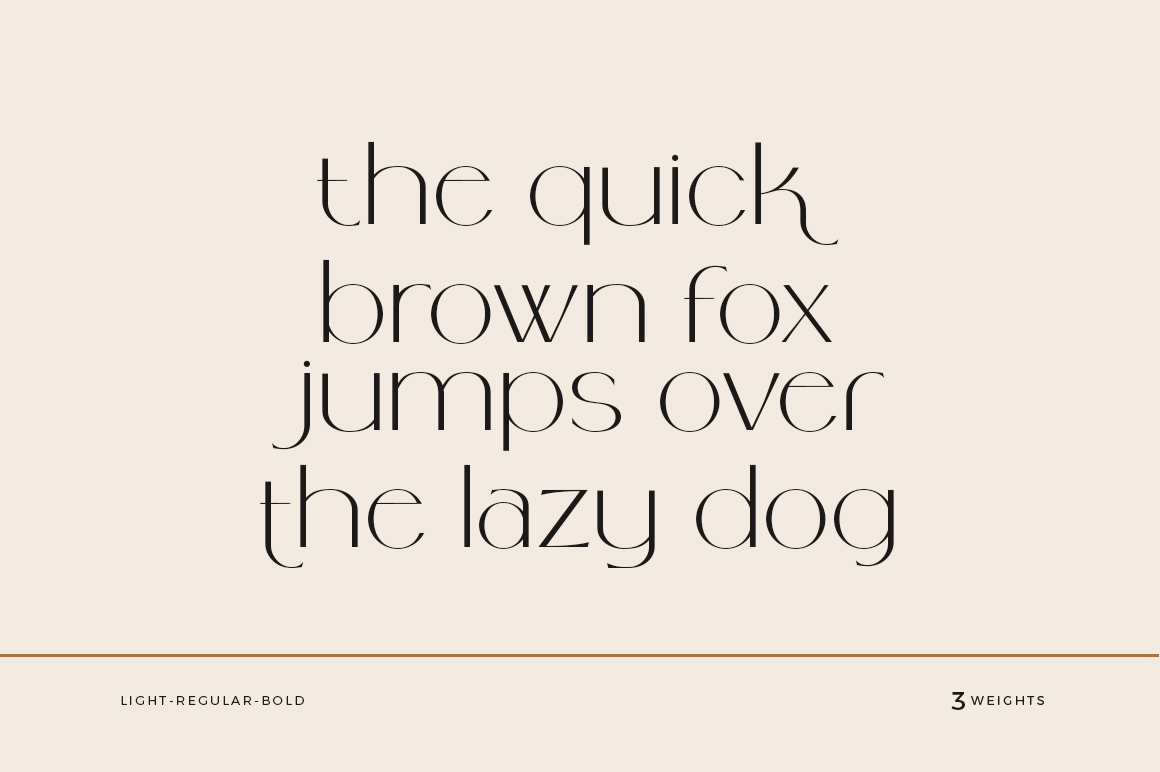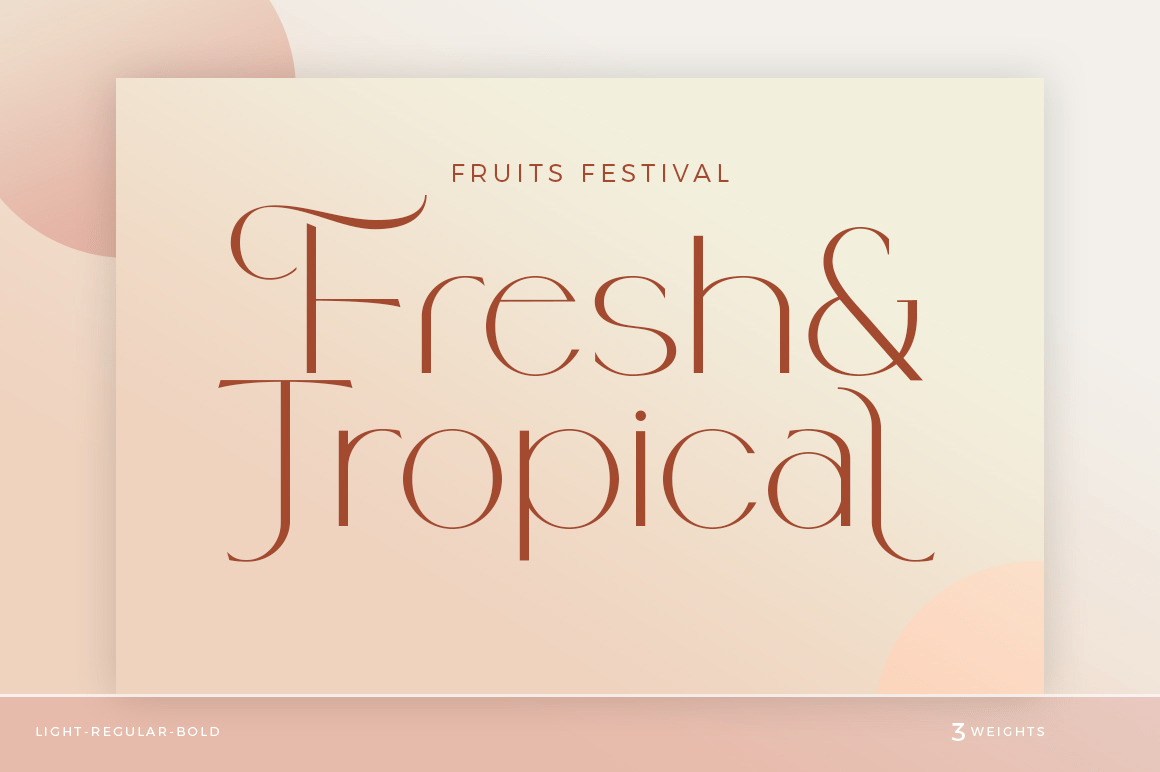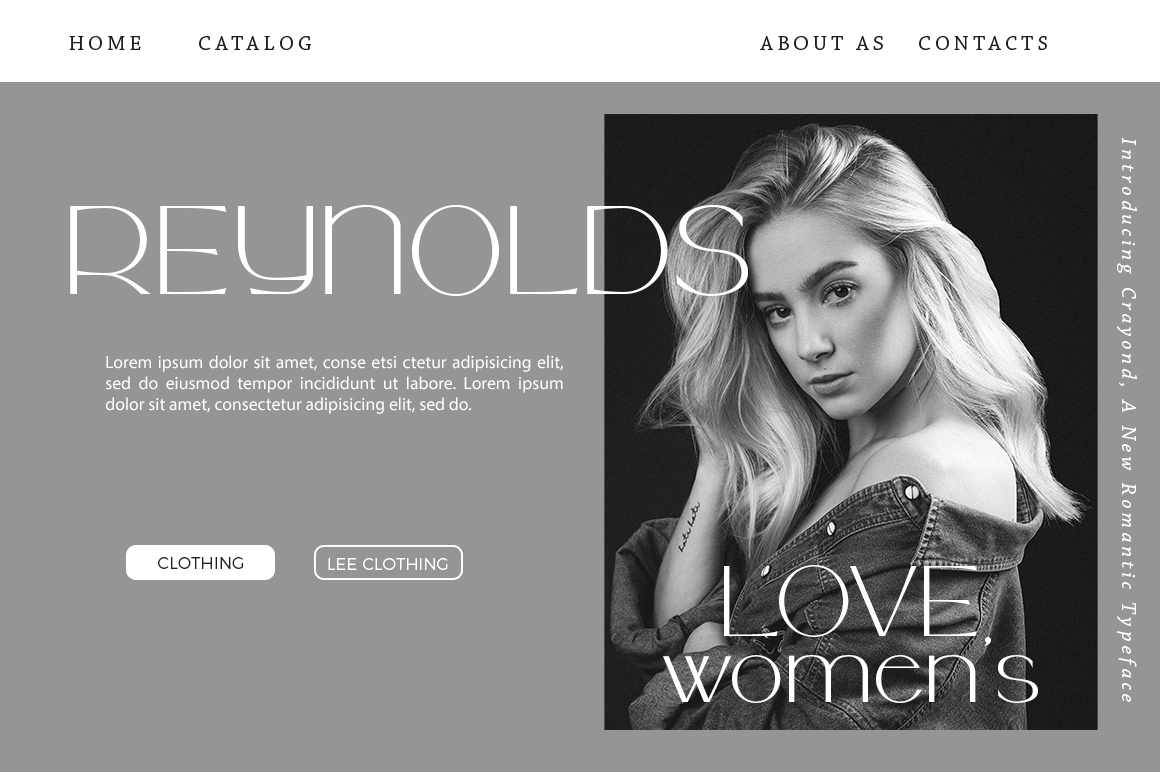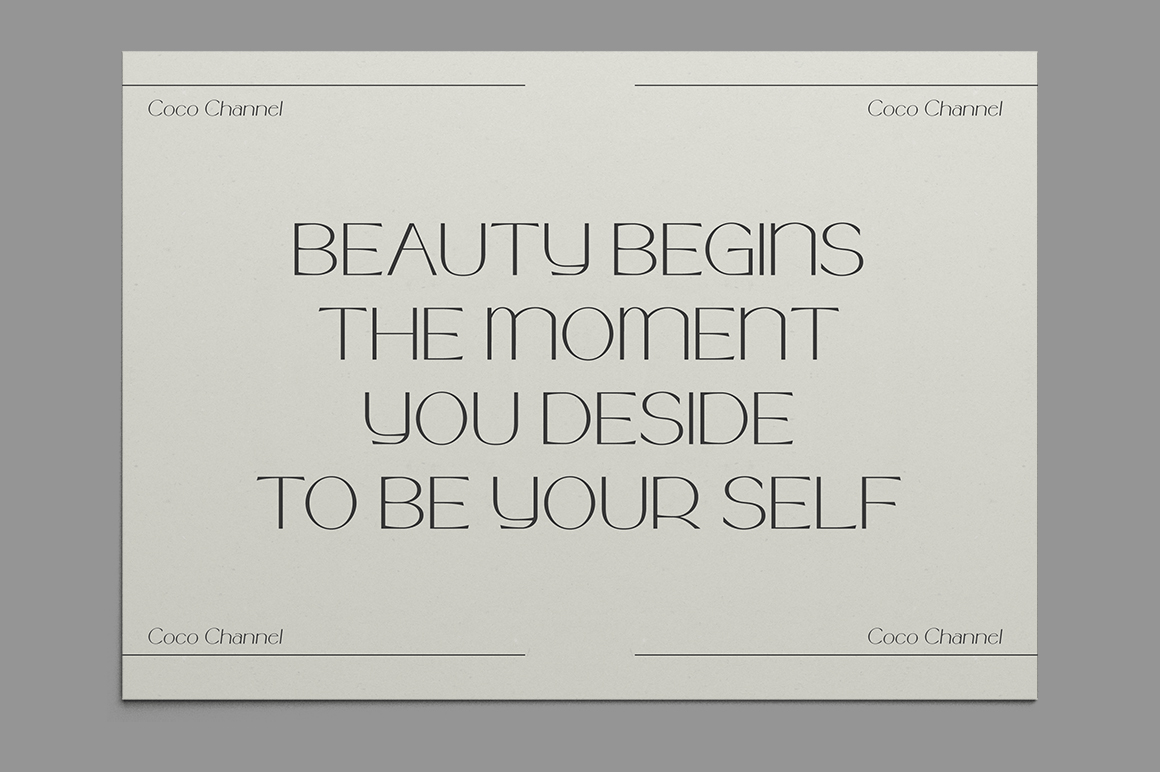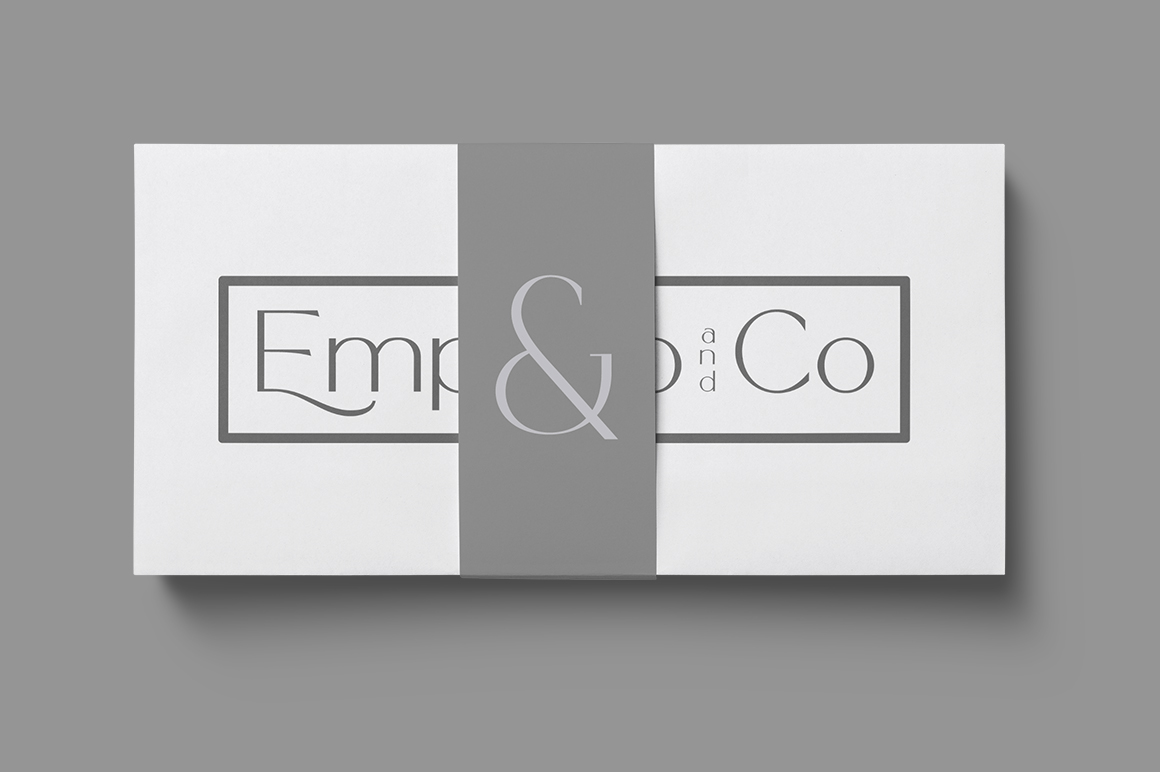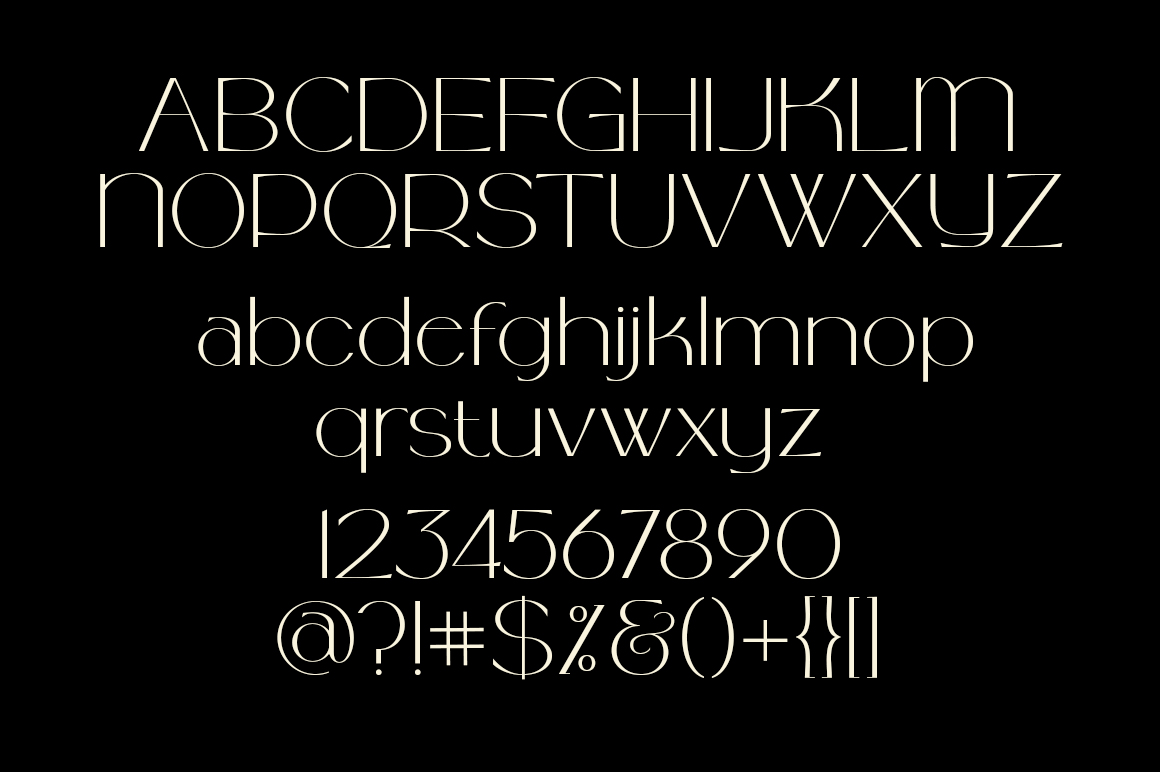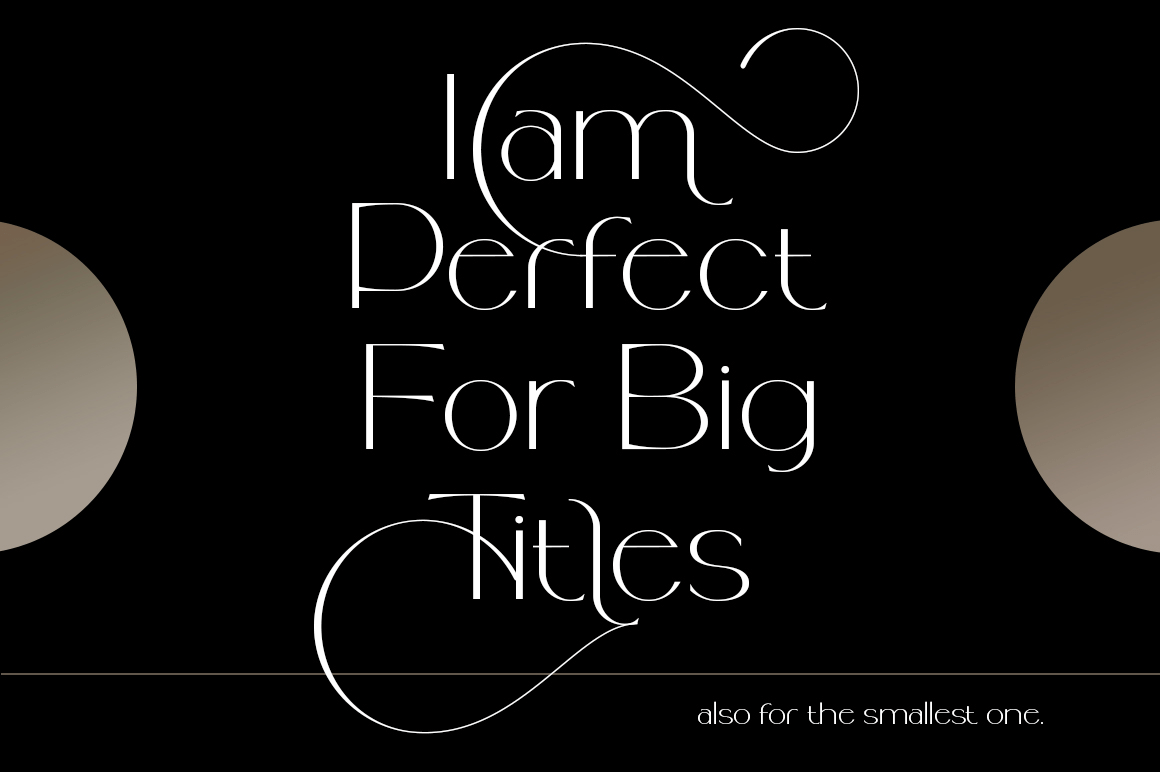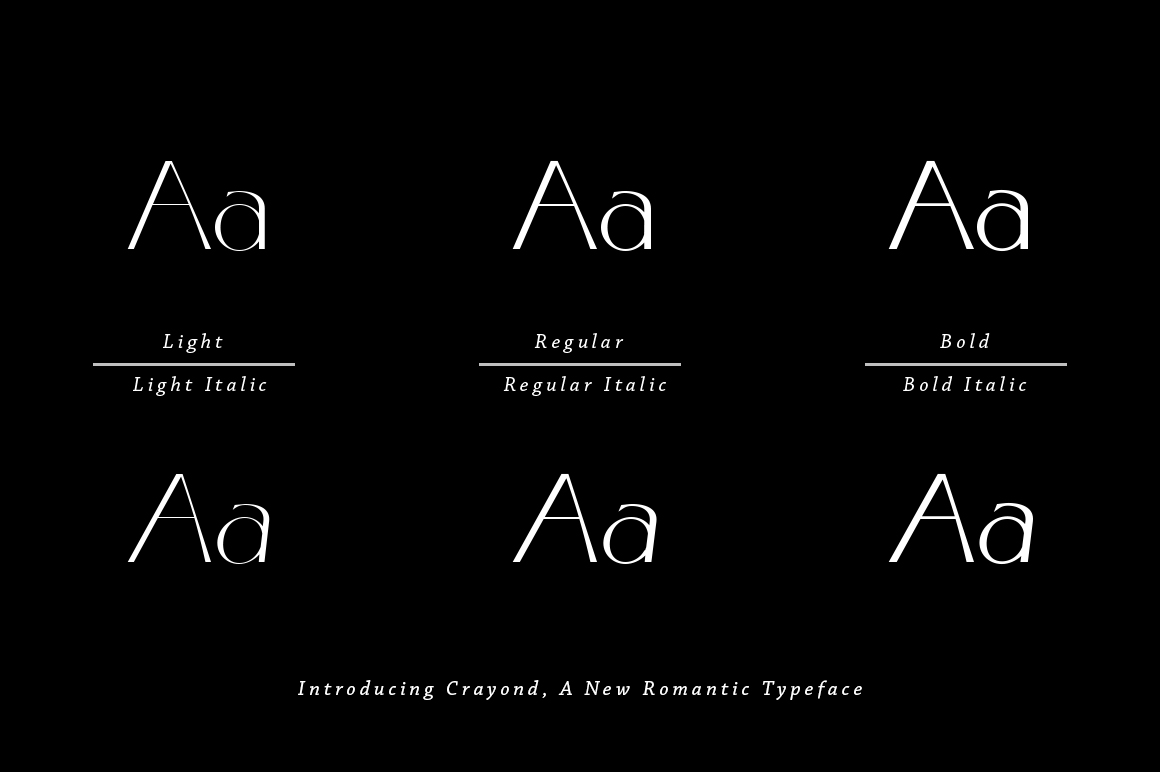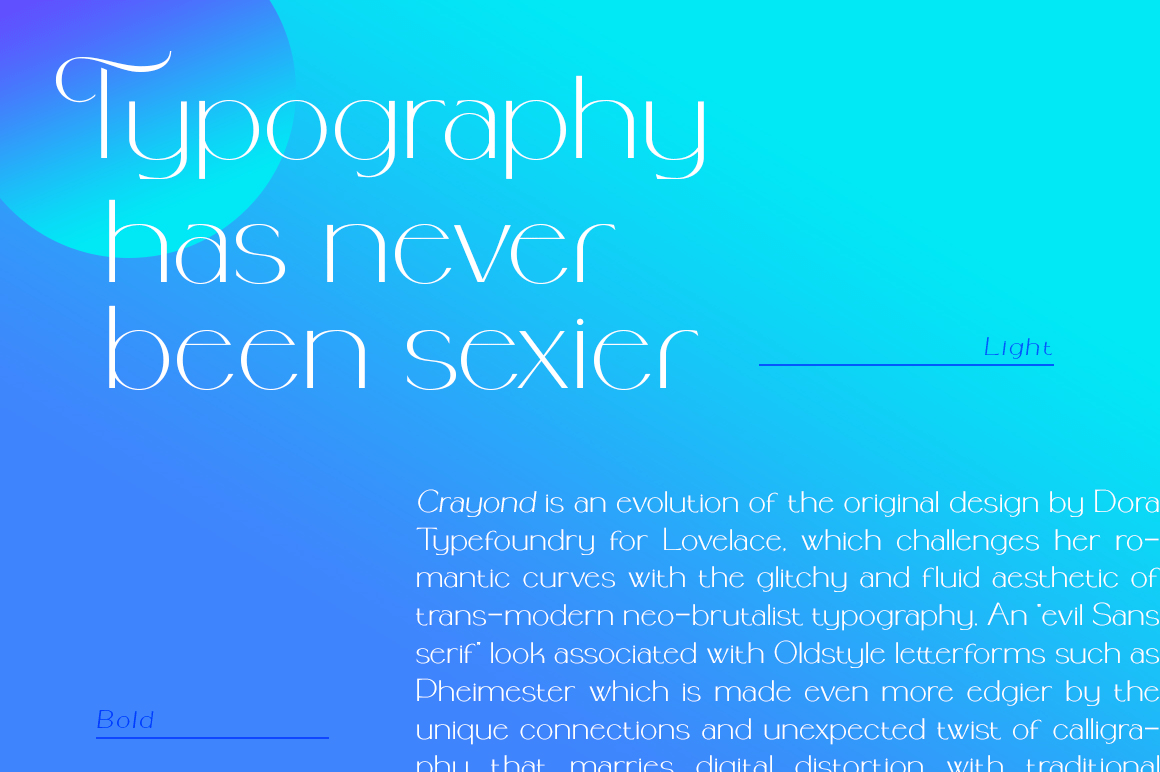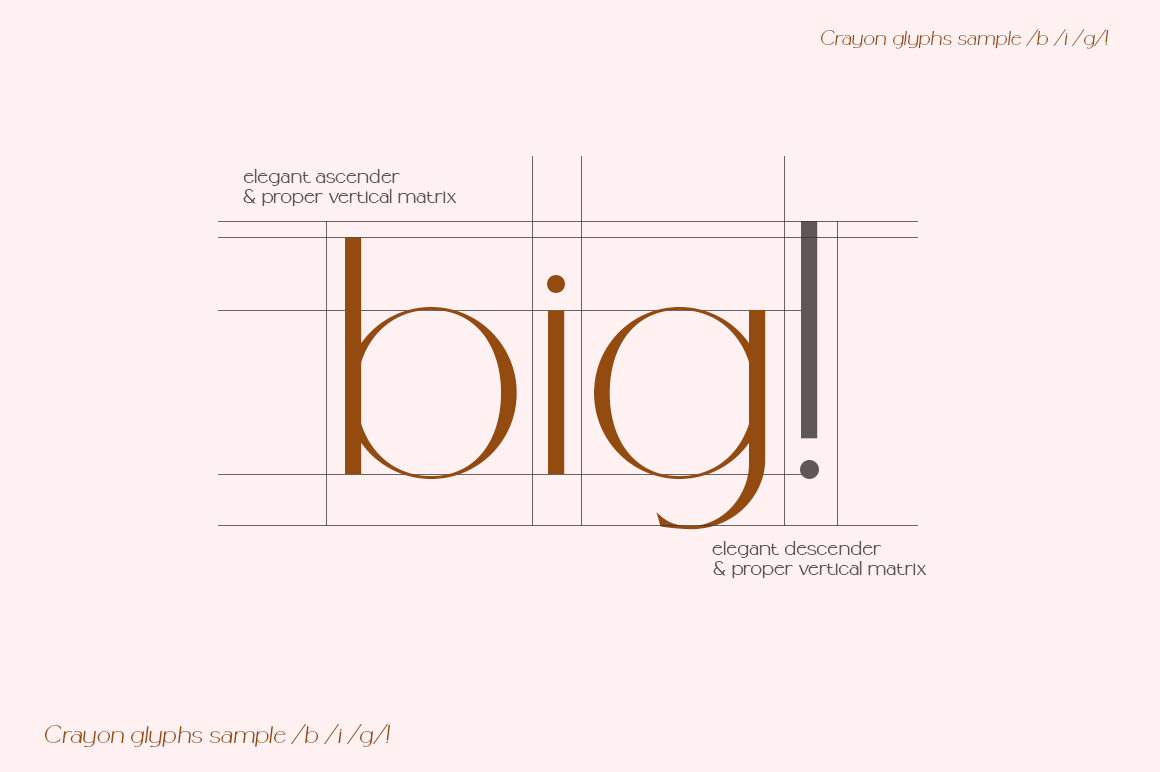
Crayond
Font Family by Dora Typefoundry
Introducing a beautiful and classy Crayond modern san serif typeface with lots of alternative styles to choose from, planting it firmly in a modern design. It is a careful collaboration between beauty and function.
The beautiful modern Crayond sans serif is available in 3 regular and Italic weights including Light, Regular, and Bold. The style of the font family stems from the classic Didone, but makes steps to simplify and modernize some letterforms and make Didone feel more contemporary.
If you want to get that classic Haute Couture look - Crayond Sans is a great choice. It is the perfect choice for fashion logos, headlines, short text, magazines, because its simplicity looks great in big typography, branding, identity, website design, album art, covers, posters, advertisements, etc.